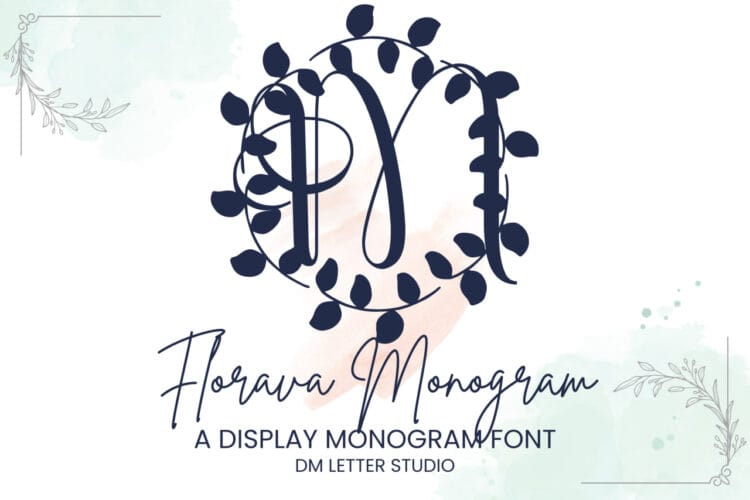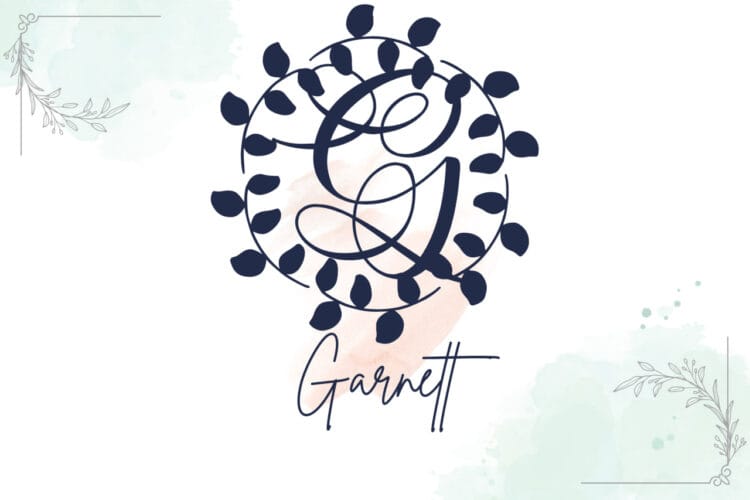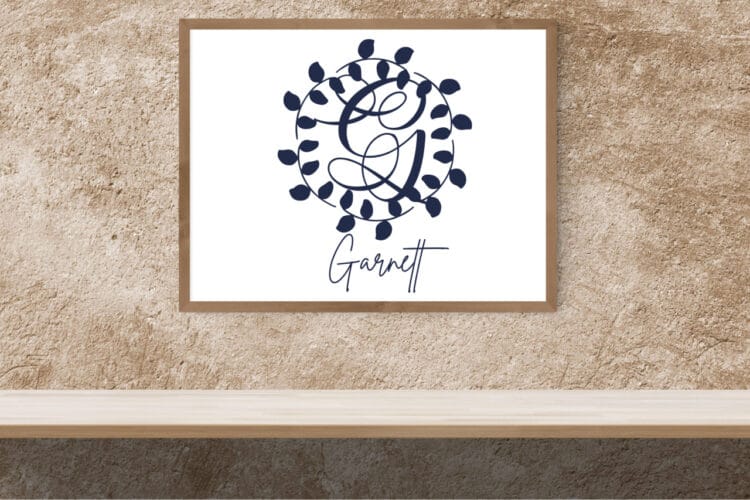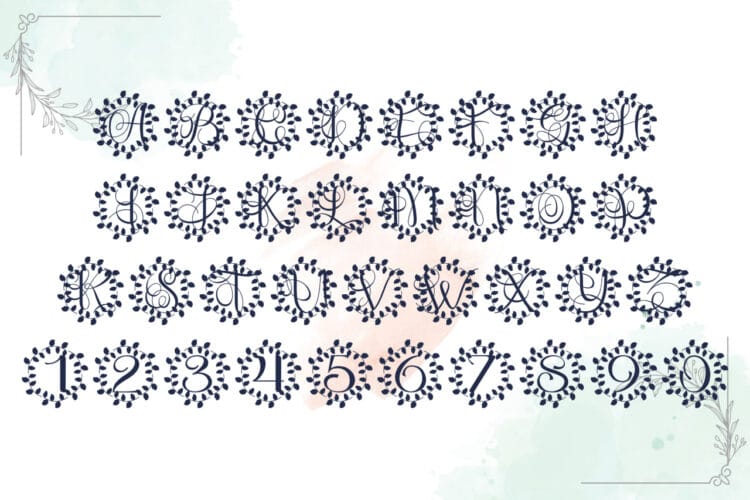
Meet Florava Monogram Font
Florava Monogram turns initials into elegant floral emblems with a fresh, graceful personality. The design blends soft botanical curves with balanced letterforms, creating monograms that feel refined, romantic, and timeless. Each character stays clear at any size, so small tags remain readable while larger designs look polished and ceremonial. Use Florava for weddings, anniversaries, boutique branding, stationery, keepsake gifts, and luxury packaging. As a result, your designs feel light, beautiful, and thoughtfully crafted.
Fast layouts with the Florava Monogram Font
Start with a central initial and let the floral form lead the design. After that, add names or dates using a soft serif or clean sans serif. Because Florava holds its shape at small sizes, labels, stickers, cards, and tags stay crisp and readable. In addition, it works beautifully with oval frames, wreath accents, thin dividers, and minimal floral details. Finally, save color palettes like blush and ivory, sage and cream, dusty rose and linen, or charcoal and soft gold to reuse across product lines.
Creative uses and quick wins
Wedding monograms, invitation covers, and save-the-date cards
Logo seals, certificates, and boutique brand marks
Gift tags, stickers, and keepsake packaging
Labels for candles, perfume, skincare, soap, and handmade goods
Design tips for Florava Monogram Font
Keep the monogram as the focal point and use a separate font for supporting text. Also, give it enough breathing room so floral details stay readable at smaller sizes. For a premium finish, try foil stamping, embossing, or letterpress on thick or textured stock. Finally, export at 300 DPI for print and at 2× size for web so edges remain smooth and consistent.